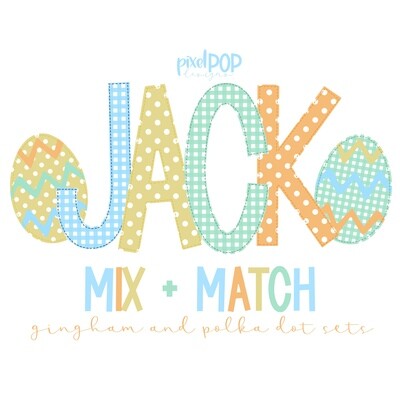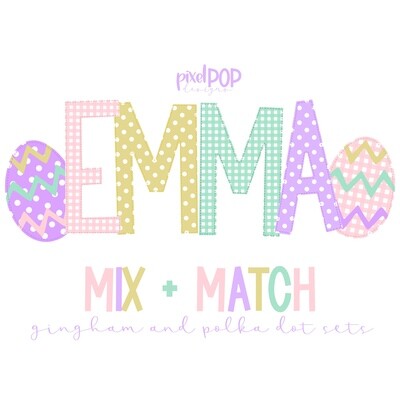
(1) Hand drawn alphabet set (letters A through Z) in lav polka dot
(1) Hand drawn alphabet set (letters A through Z) in yellow polka dot
(1) Hand drawn alphabet set (letters A through Z) in orange polka dot